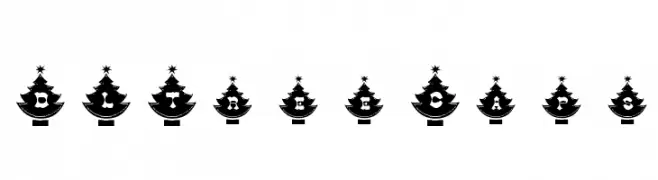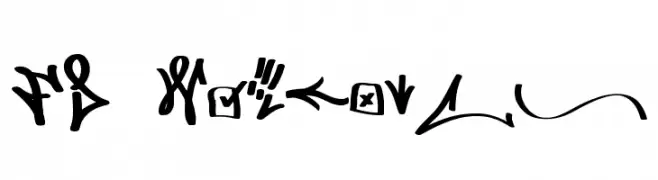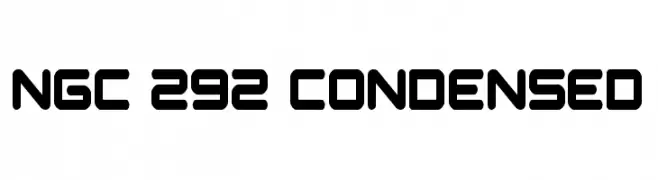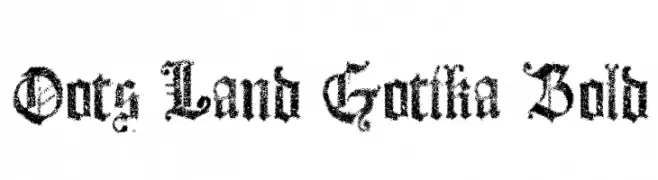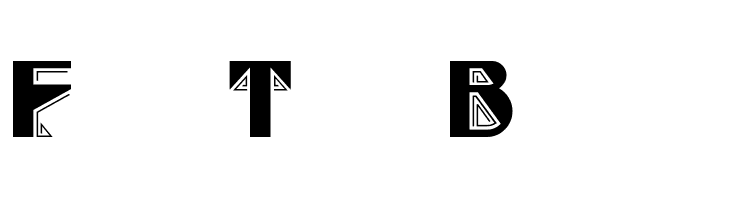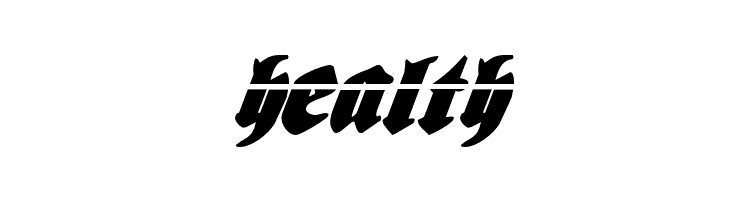
A bold, hand-drawn font with a rugged, graffiti-inspired aesthetic.
A bold, high-contrast serif font with sharp serifs and elegant style.
A bold, playful font with rounded edges and a modern style.
A bold, geometric font with rounded edges and a modern, futuristic look.
A playful, hand-drawn font with bold, rounded characters and a whimsical style.
A bold, ornate blackletter font with intricate, gothic-style letterforms.